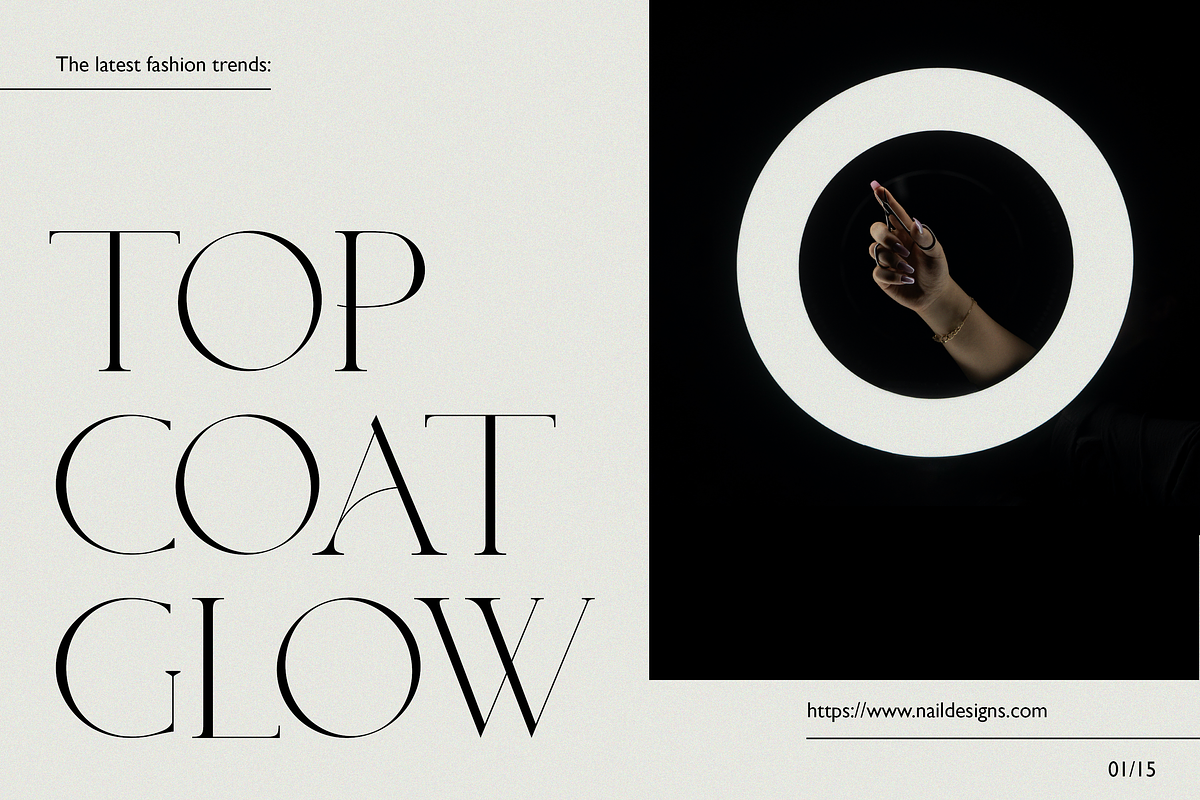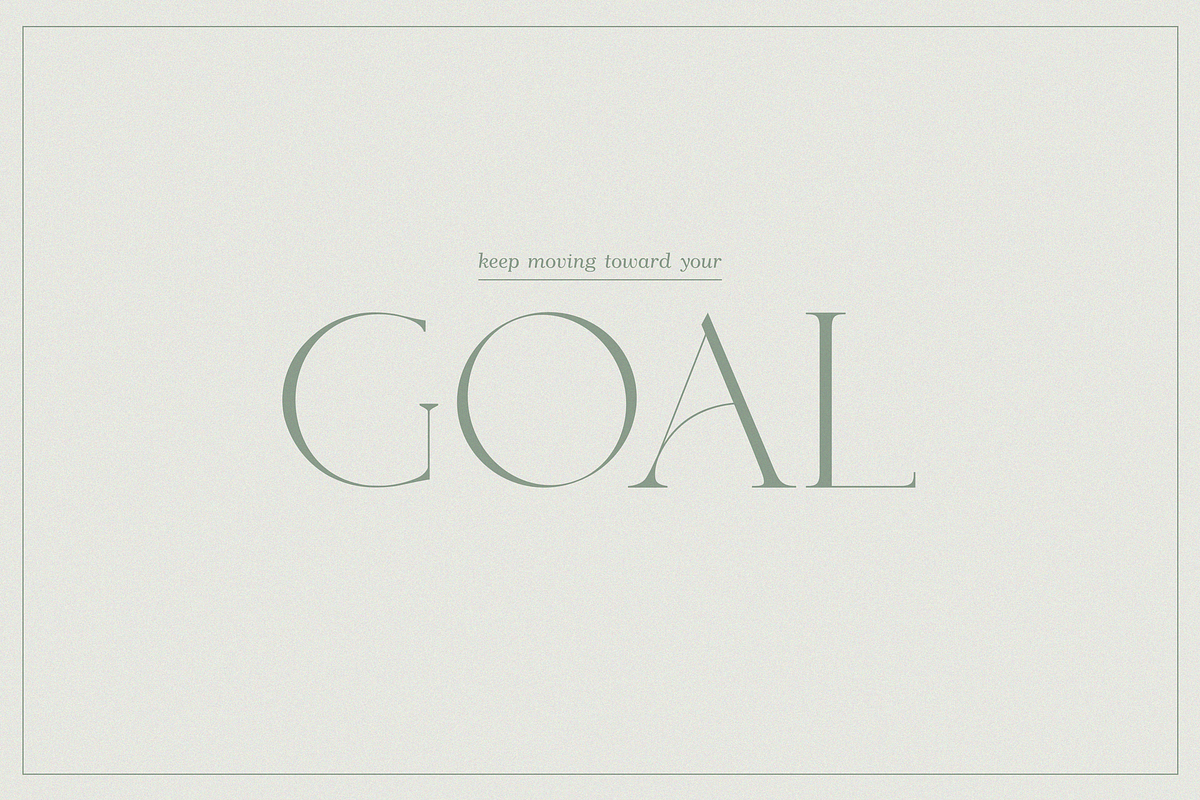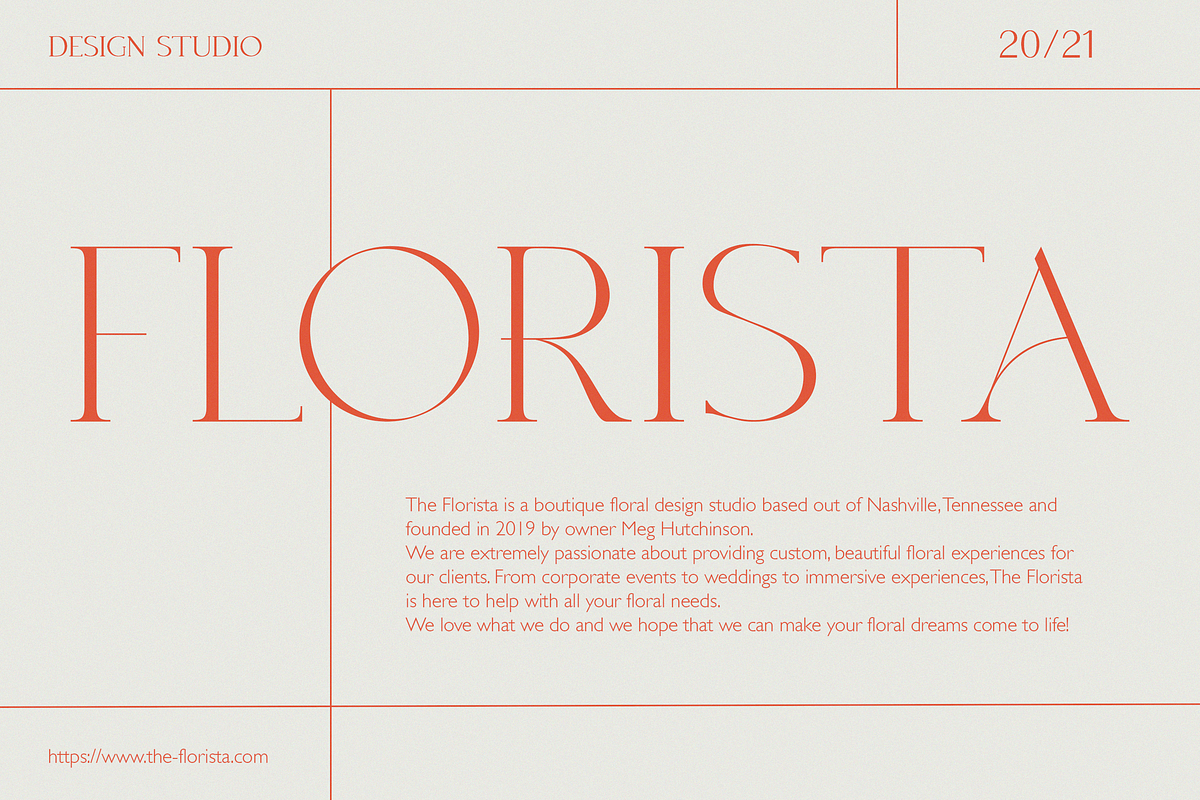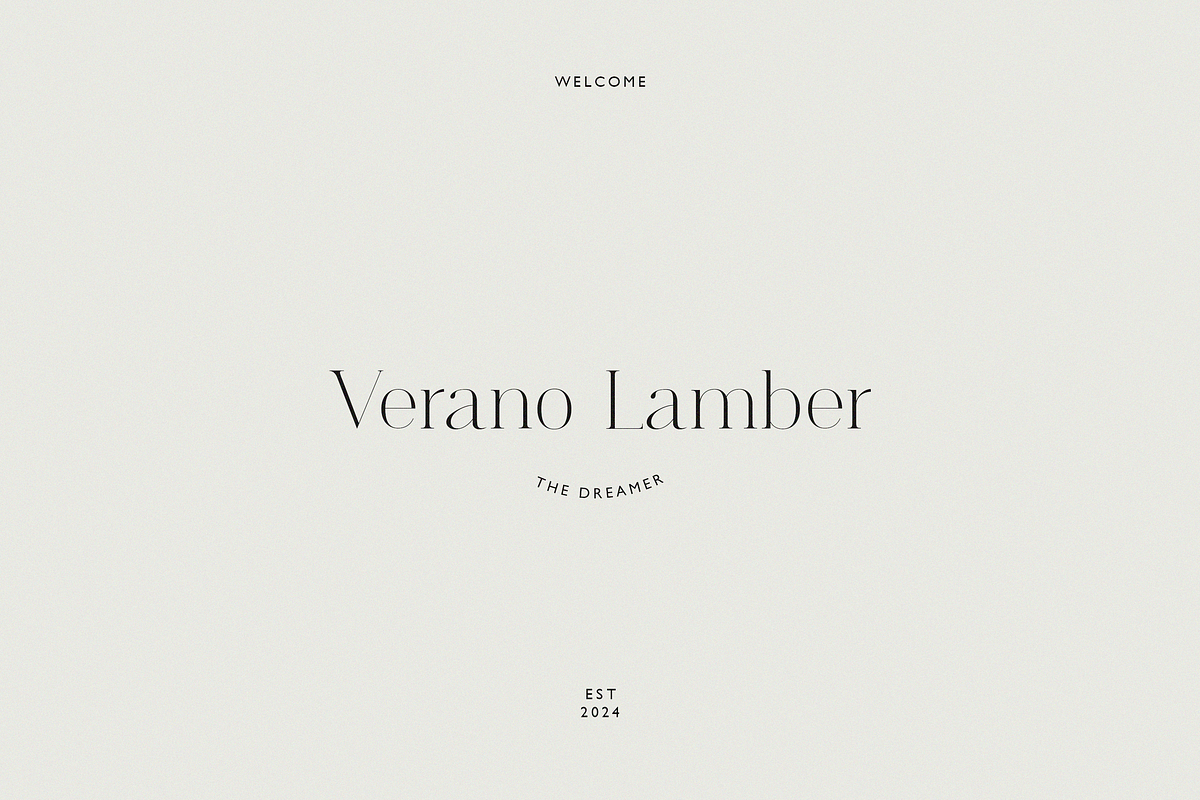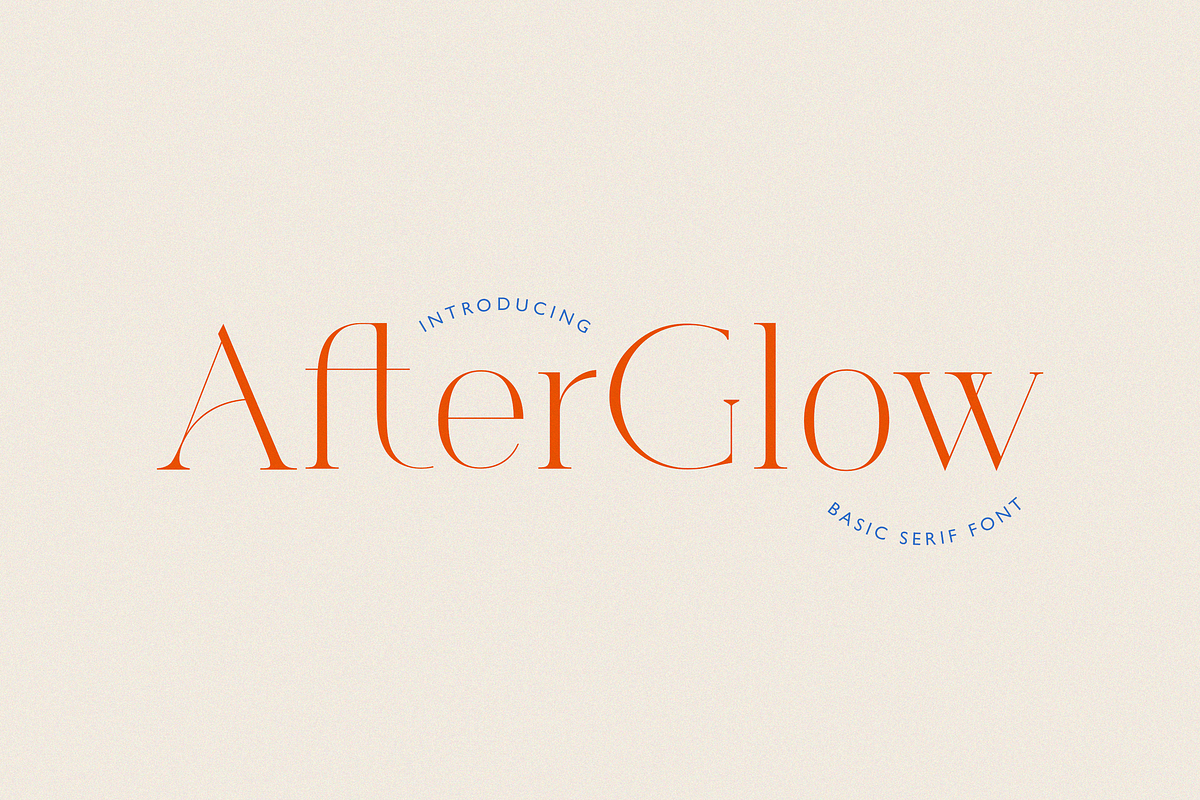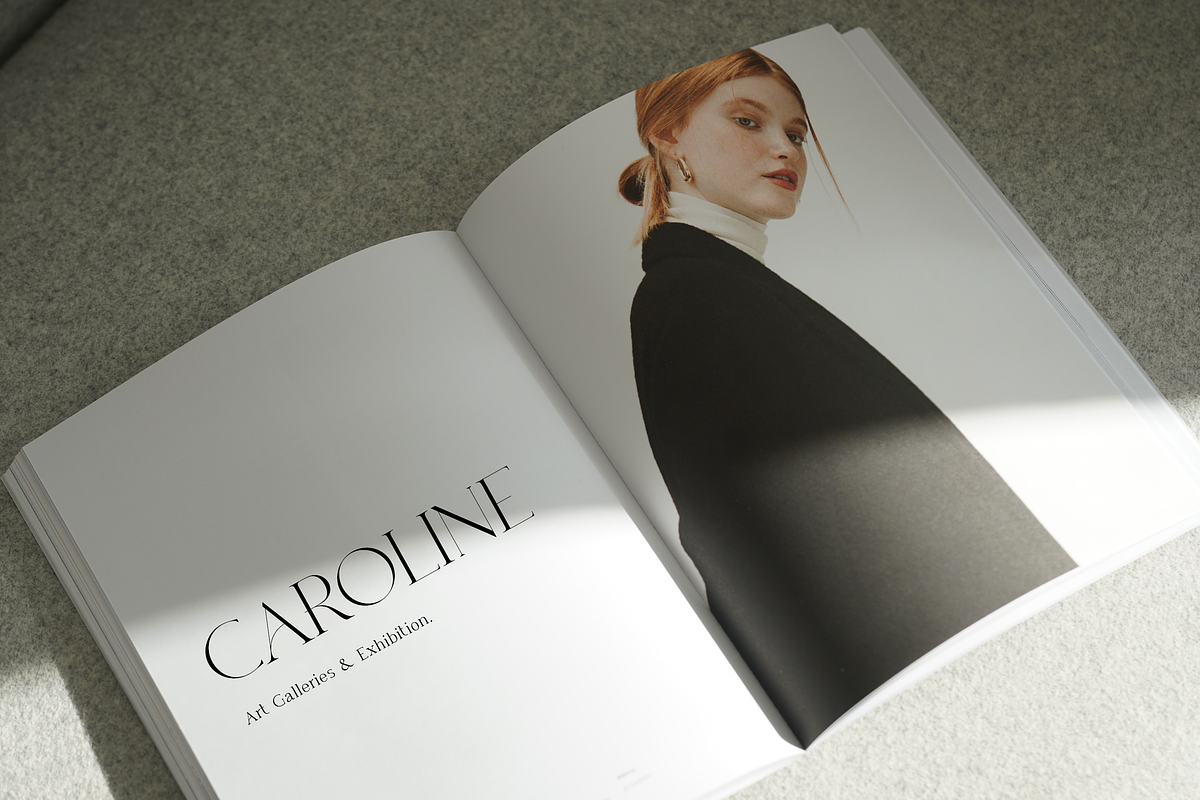
Afterglow Serif Font
Afterglow is an elegant, fashion and classic font will be a perfect for invitations, logos or any branding design project.
- Upper/lowercase, numbers, punctuations.
- Multilingual support.